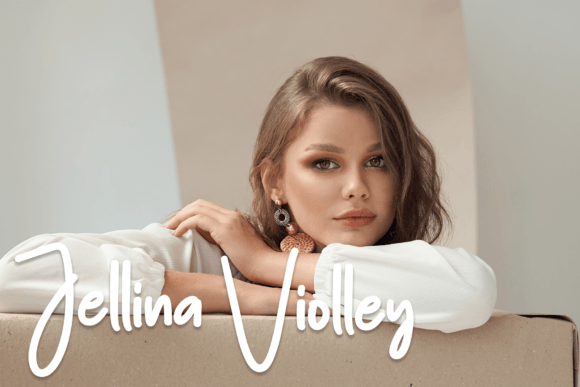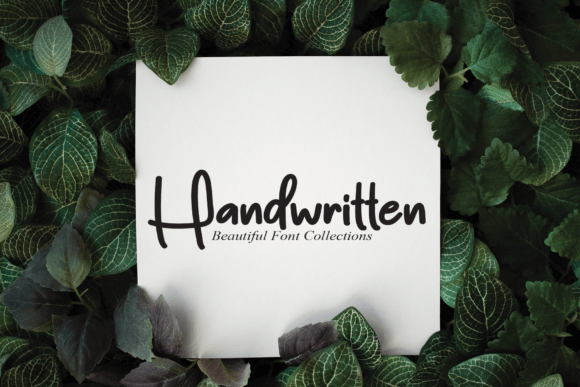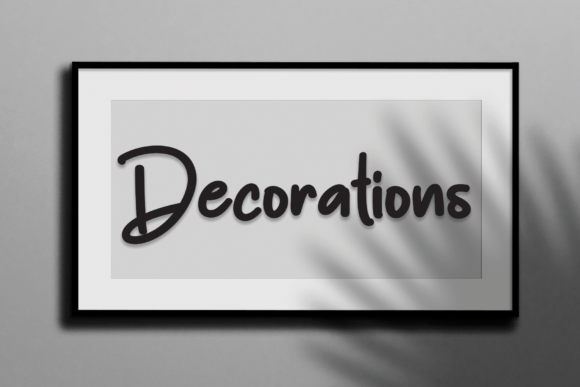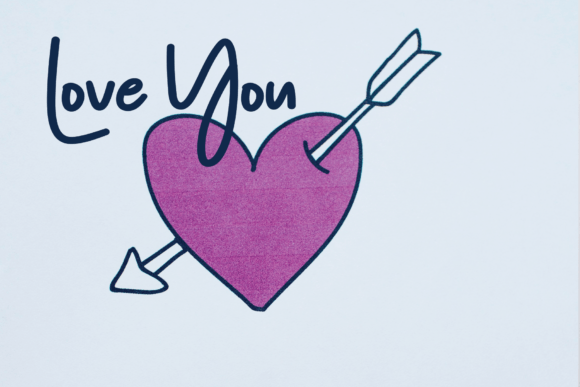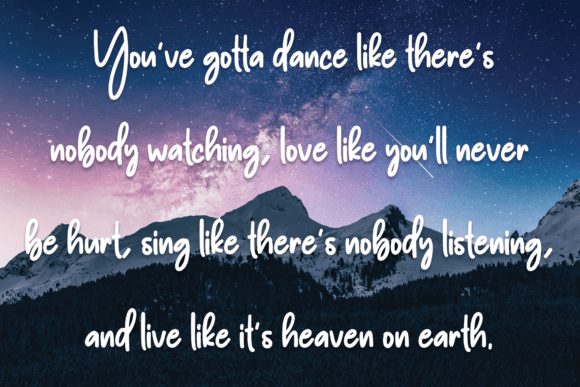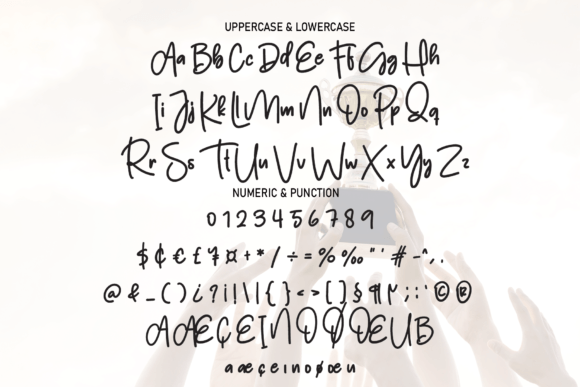
Champion Font: Elevate Your Designs with a Touch of Elegance
In the world of design, typography plays a crucial role in conveying the message and aesthetic of a project. Among the numerous font styles available, the Champion font has gained significant attention for its unique blend of elegance and versatility. In this article, we’ll explore the features and applications of the Champion font, and how it can elevate your designs to the next level.
What is Champion Font?
Champion font is a stylish and modern handwritten typeface that exudes a sense of sophistication and refinement. Its latest style letters are meticulously crafted to provide a fresh and contemporary look, making it perfect for a wide range of design applications. The font’s elegant strokes, precise lettering, and balanced spacing create a harmonious visual experience that captivates audiences.
Key Features of Champion Font
- Handwritten style: Champion font boasts a beautiful, handwritten aesthetic that adds a personal touch to any design project.
- Elegant strokes: The font’s smooth, flowing strokes create a sense of luxury and sophistication.
- Versatile: Champion font is suitable for various design applications, from print to digital media.
- Easy to read: The font’s clear and legible letters ensure that your message is conveyed effectively.
Applications of Champion Font
Champion font’s versatility makes it an excellent choice for various design projects, including:
- Wall displays: Add a touch of elegance to your wall art, posters, or banners with Champion font.
- Wedding invitations: Make your wedding stationery stand out with the font’s beautiful, handwritten style.
- Social media post logos: Elevate your social media presence with eye-catching logos and graphics featuring Champion font.
- Advertisements: Use the font to create captivating ad copy that resonates with your target audience.
- Product packaging: Add a touch of sophistication to your product packaging with Champion font.
- Product designs: Incorporate the font into your product designs, such as labels, tags, or branding materials.
- Photography: Use Champion font as a watermark or overlay to add a professional touch to your photos.
- Invitations: Create beautiful, handwritten-style invitations for special occasions.
- Stationery: Elevate your stationery, such as business cards, letterheads, or notebooks, with Champion font.
Why Choose Champion Font?
With so many fonts available, why choose Champion font? Here are a few reasons:
- Unique style: Champion font offers a distinctive, handwritten aesthetic that sets it apart from other fonts.
- High-quality design: The font is meticulously crafted to ensure precise lettering, elegant strokes, and balanced spacing.
- Versatility: Champion font is suitable for various design applications, making it a valuable addition to your font library.
Champion font is an exceptional choice for designers and crafters seeking a stylish, elegant, and versatile typeface. Its beautiful handwritten style, precise lettering, and balanced spacing make it perfect for a wide range of design applications. Whether you’re working on a wedding invitation, social media post, or product packaging, Champion font is sure to elevate your design to the next level. With its unique style, high-quality design, and versatility, Champion font is an excellent addition to any design project.